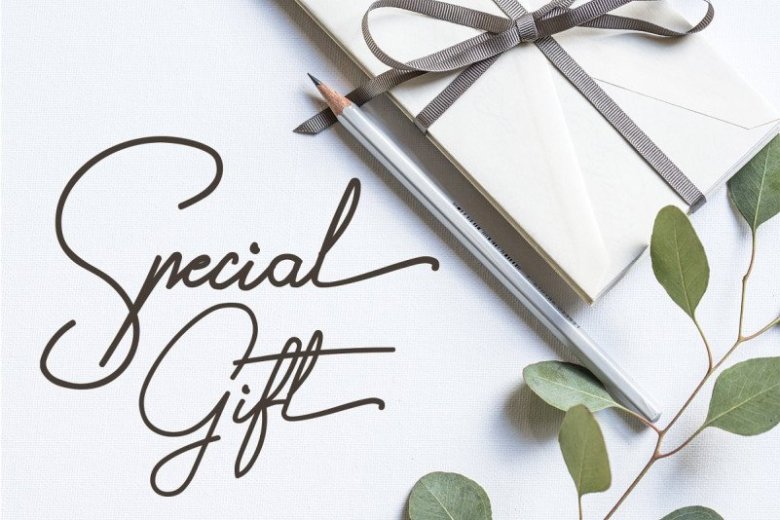
Gilberta Signature Font
Gilberta Font – A new fresh handmade signature font. This is the lovingly handmade font for elite / luxury branding, logotypes, greetings and marketing graphics. It’s designed and shared by jos gandos. Gilberta Signature Font is inspired from signature font. Gilberta is great for branding design, signature designs, product packaging, simply design with stylish text overlay to any background image.